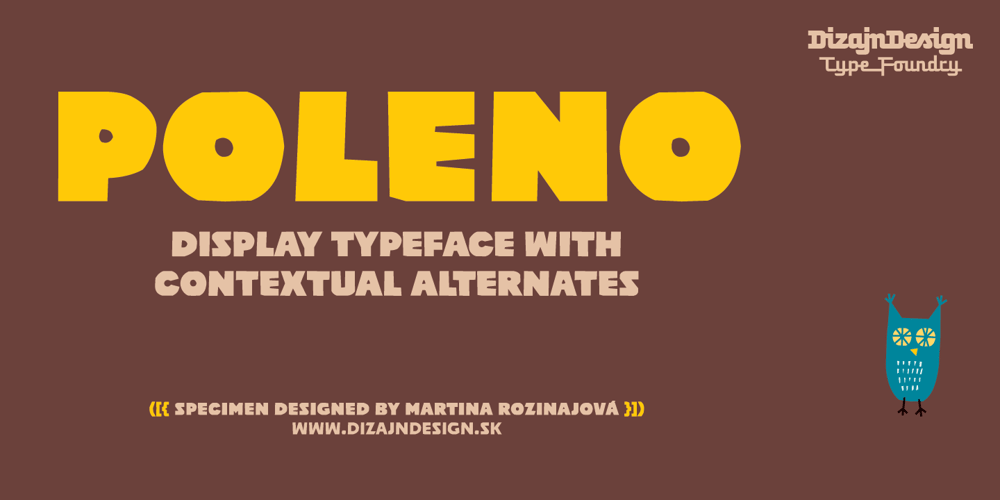
Poleno Font Family was designed by Ján Filípek and published by DizajnDesign. Poleno contains 12 styles and family package options. Poleno is a custom typeface originally designed in 2006 for the Slovak folk dance ensemble Poleno, as a part of their corporate identity. Ever since, new weights have been added to complete six variables and two different options for accents. The typeface adds a fresh, bold and non-rational feeling to headlines and titles in books and posters in display sizes where emphasis and detail are equally important. Randomly-generated contextual alternates included in the family contribute to add a distinctive look to words with repeating characters, whenever they occur next to each other. The difference between the Poleno Set and the Poleno Alt Set is in the accented characters. In the first one, accents are merged with the characters and in Alt version, accents are separated from the characters.